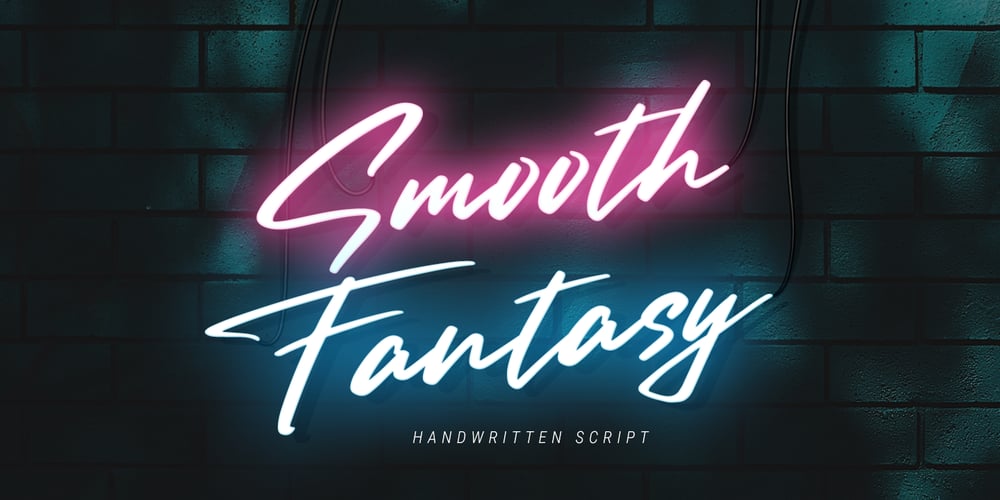
Smooth Fantasy Font Family was designed by Donis Miftahudin and published by Din Studio. Smooth Fantasy contains 1 styles and family package options. Smooth Fantasy is designed with a chic and natural handwritten style, and makes for a beautiful typefaces. Smooth Fantasy is best used for logotype, branding, quotes, and more. Features: – Ligatures – PUA Encoded – Multilingual Support – Numerals and Punctuation I hope your project design would be more beautiful with this Smooth Fantasy. Happy Design 🙂 Thank You!